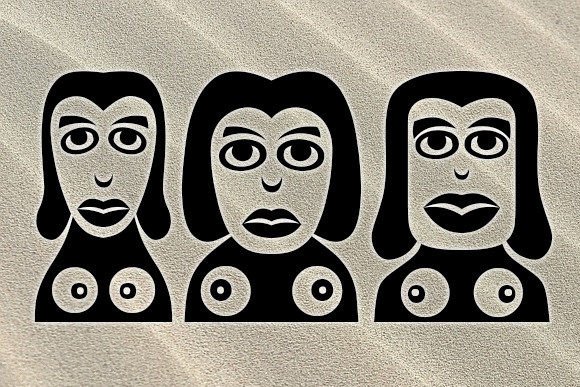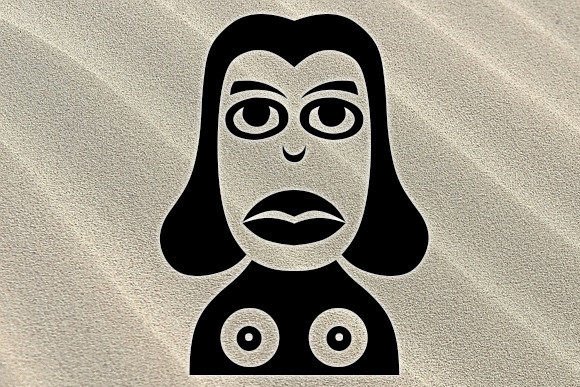
Introduction to Frauen Font
Frauen is a fantastic dingbat font that will make your designs look amazing and unique.
Use this font on posters, flyers, and much more .
Why Choose Frauen Font?
Frauen Font offers exceptional quality and versatility, making it a valuable addition to your design toolkit. Whether you’re creating for personal projects or commercial use, Frauen Font delivers professional results.